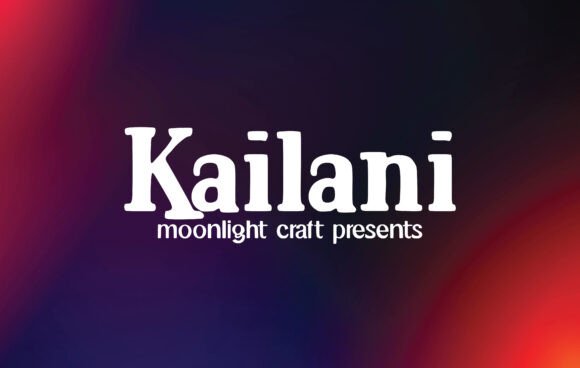
Kailani Font: Elevating Handmade Products and Printables
As a small business owner or creative maker, finding the perfect typeface is often the difference between a product that looks homemade and one that looks professionally designed. Kailani is a Slab Serif font that bridges this gap beautifully, offering a distinct personality that remains highly functional for commercial projects. When we talk about Fonts for physical products and digital downloads, versatility is key, and this specific typeface is designed to be a true favorite for creators who need reliability alongside style. It has the potential to take your creative ideas to the highest level because it balances aesthetic charm with the practical legibility required for selling tangible goods.
Using Kailani for Product Labels and Packaging Design
When designing packaging for candles, soaps, or boutique food items, Kailani serves as an exceptional anchor for your brand identity. This Slab Serif font brings a sturdy yet refined weight to labels, ensuring that product names stand out clearly on store shelves or in online listing photos. Unlike delicate scripts that can become illegible when scaled down for 2x2 inch stickers, Kailani maintains its structural integrity at smaller sizes. This font is legible and looks great as a title or body text, making it ideal for ingredient lists, scent descriptions, or care instructions where clarity is just as important as beauty.
For handmade sellers using cutting machines like Cricut or Silhouette, the robust serifs of Kailani provide enough surface area for vinyl adhesion without sacrificing elegance. You can use it for main product titles on jar labels while pairing it with a simpler sans serif for regulatory text. The visual warmth of this typeface adds perceived value to artisanal goods, signaling to customers that the item inside was crafted with intention and care. Whether you are creating waterproof vinyl stickers for water bottles or textured paper tags for jewelry, this font ensures your branding remains consistent and readable across different materials and finishes.
Optimizing Readability for Small Stickers and Tags
- Test Print Sizes: Always print a test sheet at actual size before mass production to ensure the slab serifs do not fill in on tiny 1-inch circle stickers.
- Vinyl Weeding: The solid construction of Kailani makes weeding easier than thin display fonts, reducing production time for sticker businesses.
- Contrast Matters: Use high-contrast color combinations, such as cream text on dark green packaging, to maximize the legibility of the serif details.
- Kerning Adjustments: Slightly increase tracking on all-caps label text to prevent serifs from touching, which improves readability on curved surfaces.
Kailani for Wedding Invitations and Elegant Stationery
Wedding stationery requires a typeface that feels timeless yet fresh, and Kailani fits this niche perfectly within the realm of premium Fonts. As a Slab Serif, it offers a modern alternative to traditional calligraphy, providing a structured foundation for invitation suites that need to be read quickly by guests. This font is designed to be a true favorite for stationers because it handles hierarchy effortlessly; it works beautifully as a bold header for "Save the Date" cards while remaining soft enough for detailed ceremony information. Its ability to function as both a display and text font simplifies the design process, allowing you to create cohesive suites without juggling five different type families.
For printable product creators selling editable wedding templates on Etsy, including Kailani adds significant commercial appeal. Buyers are looking for designs that feel custom and expensive, and this typeface delivers that high-end typographic look. It pairs exceptionally well with flowing script fonts for couple names, grounding the whimsy with stability. Furthermore, because this font is legible and looks great as a title or body text, it reduces customer support inquiries regarding readability. Your clients can confidently use it for welcome signs, seating charts, and menu cards, knowing that their older guests will have no trouble reading the essential details.
Creating Digital Printables and Wall Art with Kailani
The digital download market is saturated, but Kailani helps your listings stand out through superior typography and professional presentation. In the category of decorative Fonts, this Slab Serif brings a trendy, editorial quality to wall art quotes, affirmation cards, and educational posters. Because it has the potential to take your creative ideas to the highest level, you can move beyond generic designs and create pieces that look like they belong in a curated home decor shop. The font’s unique character shapes add visual interest to minimalist layouts, making even simple text-based art feel substantial and worthy of framing.
For planner and journal creators, Kailani is invaluable for section headers and monthly dividers. Its legibility ensures that users can navigate their planners efficiently, while its style keeps the aesthetic inspiring rather than sterile. When designing social media templates or Instagram story backgrounds for sale, this typeface provides the necessary punch to stop the scroll. It renders crisply on screens and prints sharply on home printers, which is crucial for customer satisfaction with instant-download products. By utilizing a font that excels in both digital and physical formats, you streamline your workflow and maintain brand consistency across all your creative assets.
Effective Font Pairing Strategies for Makers
- Kailani + Handwritten Script: Use Kailani for the informational text and a loose, organic script for accents to balance structure with emotion in greeting cards.
- Kailani + Clean Sans Serif: Pair bold Kailani headlines with a geometric sans serif for body copy to create a modern, accessible look for instructional PDFs.
- Kailani + Traditional Serif: Combine Kailani as a display header with a classic old-style serif for long-form text in zines or booklets for a sophisticated editorial vibe.
- Monochromatic Styling: Use Kailani in varying weights and sizes exclusively for a minimalist, cohesive brand identity across packaging and web presence.